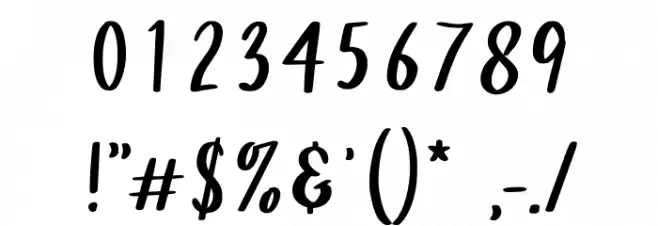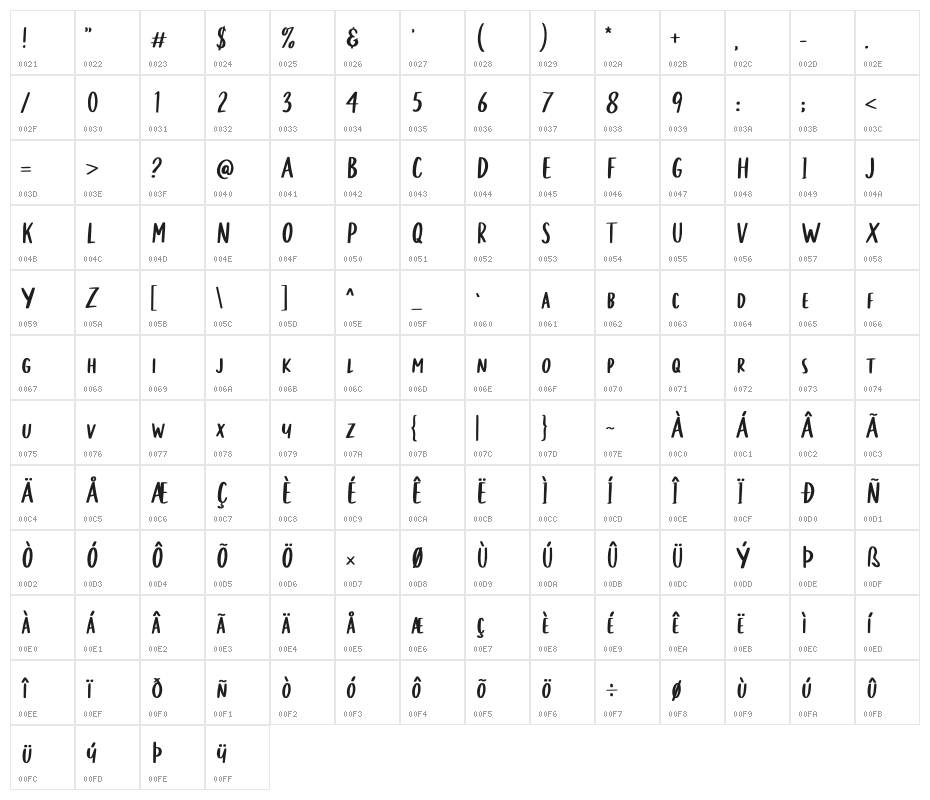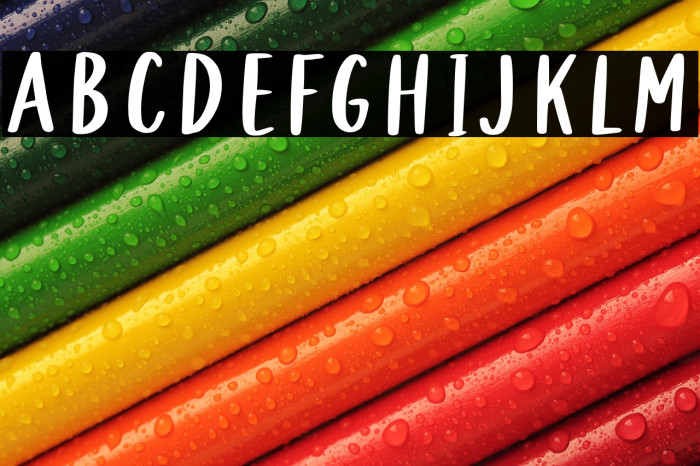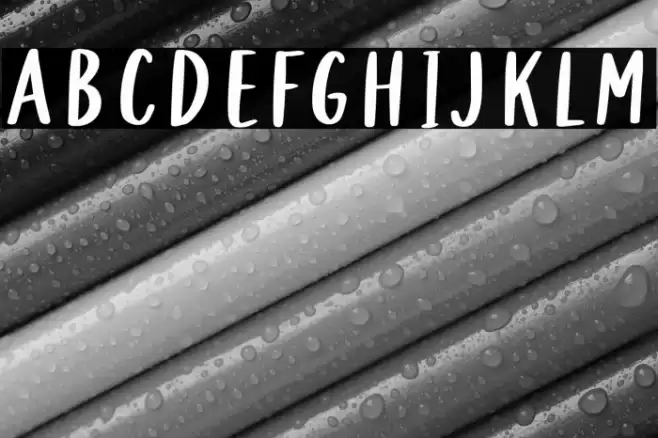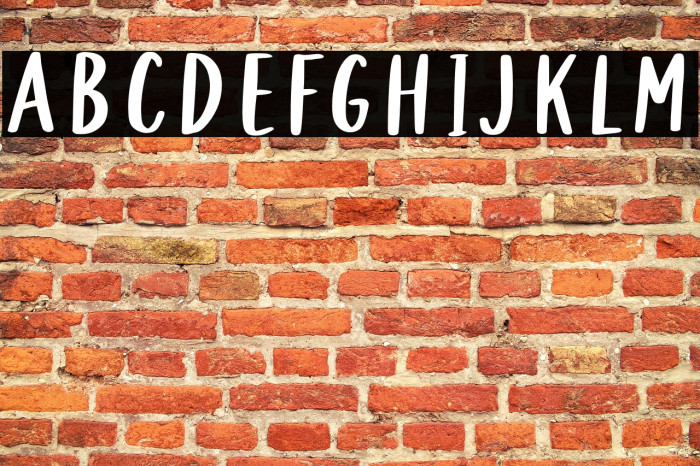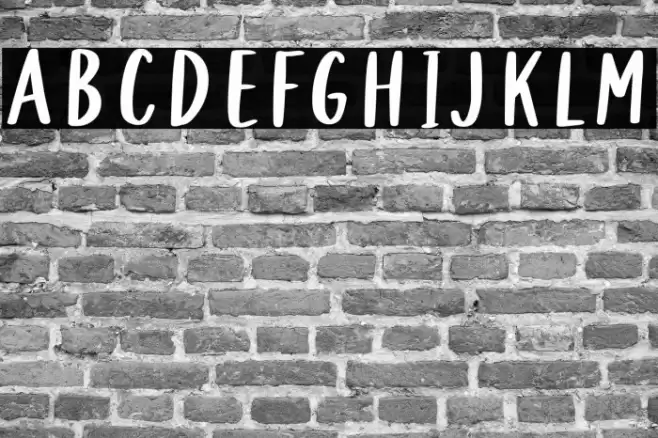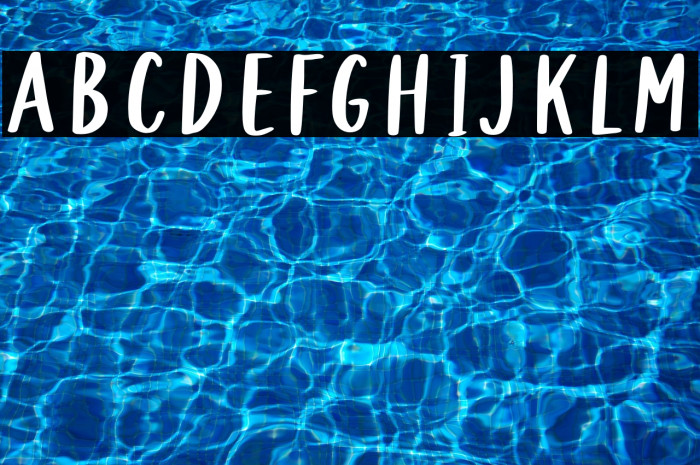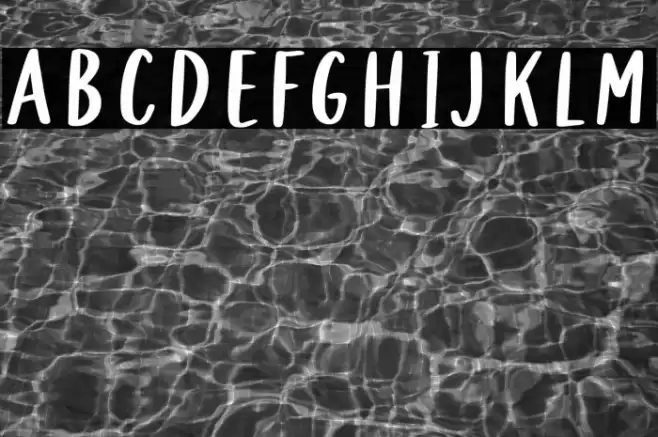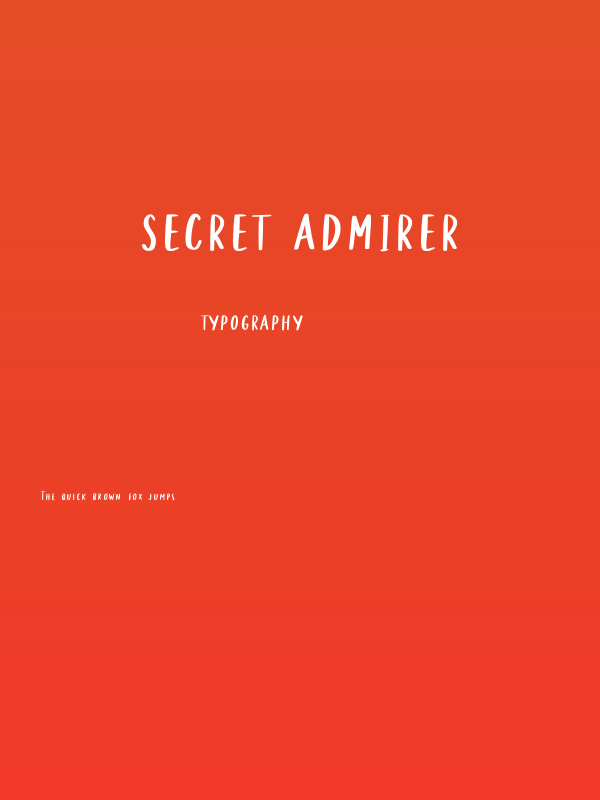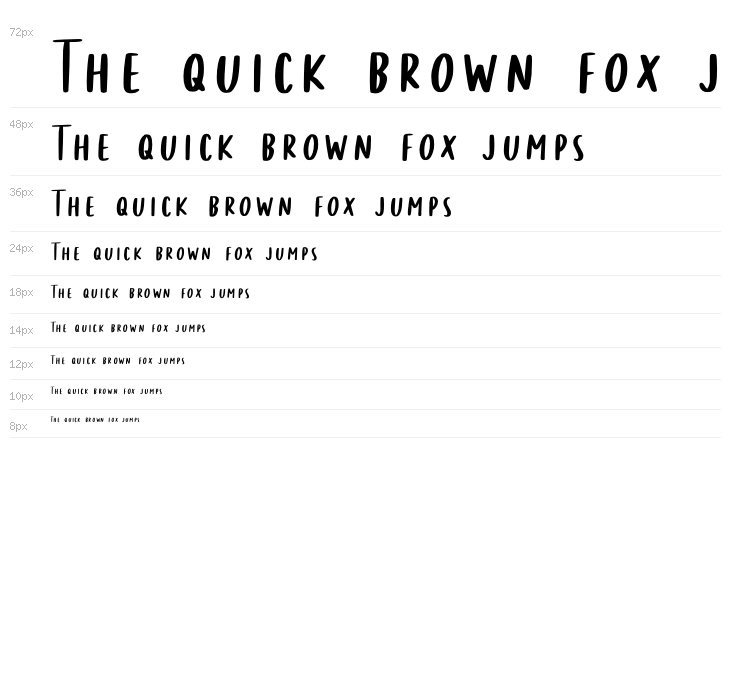
Secret Admirer Font
Secret Admirer Description
This font features a playful and casual handwritten style, characterized by its smooth curves and slightly irregular strokes. The letters have a natural flow, giving a sense of spontaneity and warmth. The uppercase and lowercase letters maintain a consistent style, with rounded edges and a slight slant, adding to the informal and approachable feel. The numerals and special characters are designed to match the overall aesthetic, ensuring a cohesive look across all text elements. This font is perfect for projects that require a personal touch, such as invitations, greeting cards, or branding materials that aim to convey friendliness and creativity.